10+ Free Best Typography Cursive Fonts for Modern Design
Typography Cursive Fonts for Modern Design
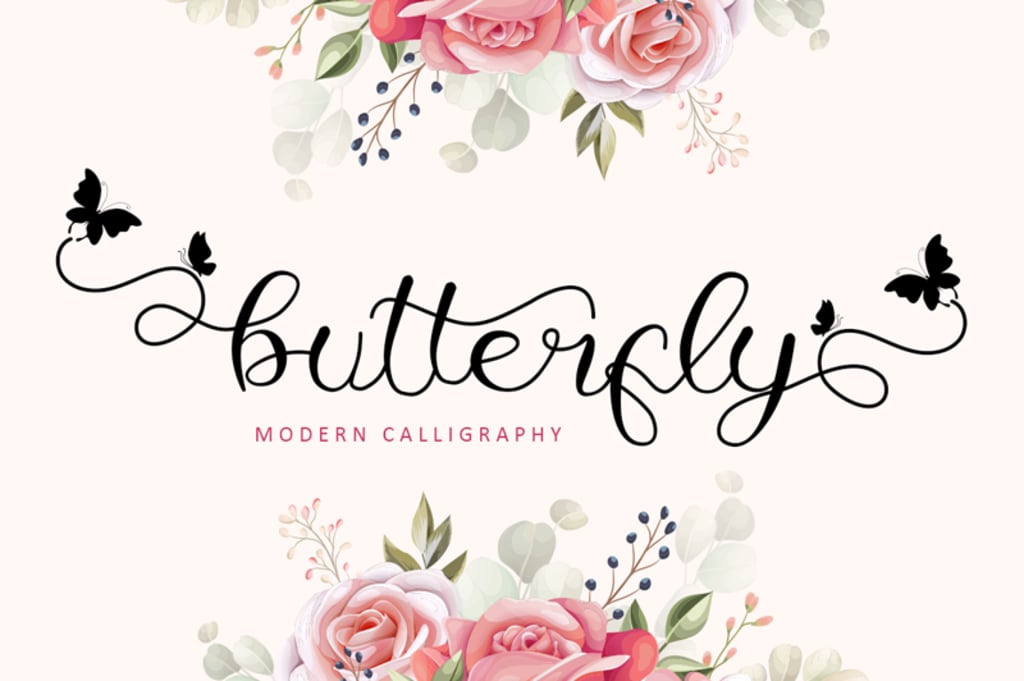
A designer needs to know many types of fonts to give a beautiful touch and enhance the design quality. Additionally, you also need to know the do’s and dont’s of font types so you can use them properly. If you design invitations, logos, brands, book covers, posters, and more, try using cursive font typography.
Cursive fonts are inspired by handwriting which was very popular in the 16th century. The purpose of writing using cursive letters at that time was to make it faster. However, the interlocking strokes between one letter and another turn out to be pleasing to the eye.
10+ Best Choice of Typography Cursive Font for Designer
Below are some recommendations for cursive fonts that you can choose to give a sweet and elegant touch to your design:
1. Sweet Lavender
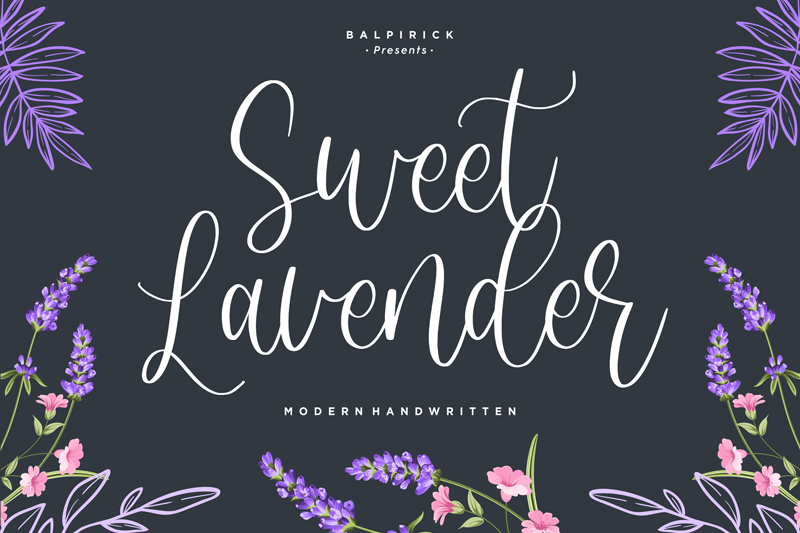
The letters in the Sweet Lavender font are medium-thickness. In addition, the strokes connecting letter to letter use thinner lines. This type of font has excellent legibility because the gap between letters is quite wide. As such, this font will work well for long texts.
2. Creamy Chocolate
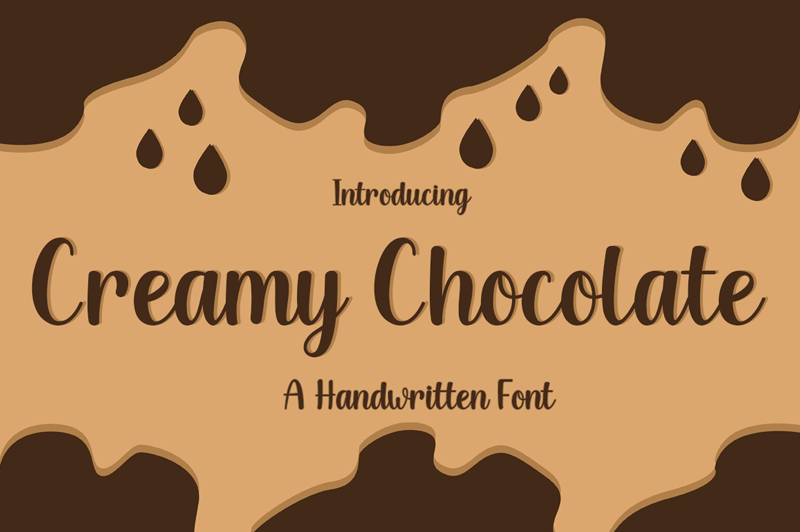
The next cursive font that you can use for long text with very clear legibility is the Creamy Chocolate font. This font is semi-cursive, so the block letter design is clearly visible. The display also looks clean because it doesn’t use a lot of strokes and curls.
3. Gelato
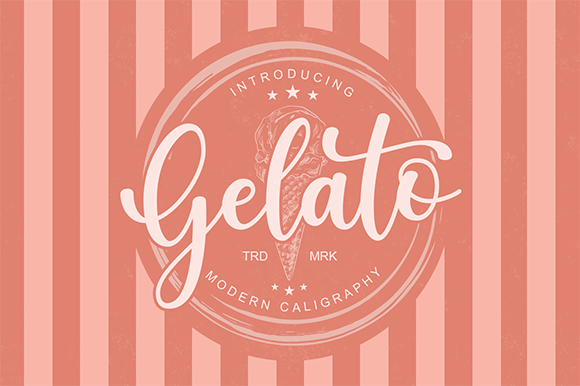
Another beautiful cursive font you can choose for poster titles, book covers, and other design projects is the Gelato font. Even though it doesn’t use too many curly accents, the writing looks elegant, neat, and sweet.
Additionally, Gelato font also provides complete features, such as uppercases, lowercases, symbol letters, punctuation marks, and numbers.
4. Billie Sight
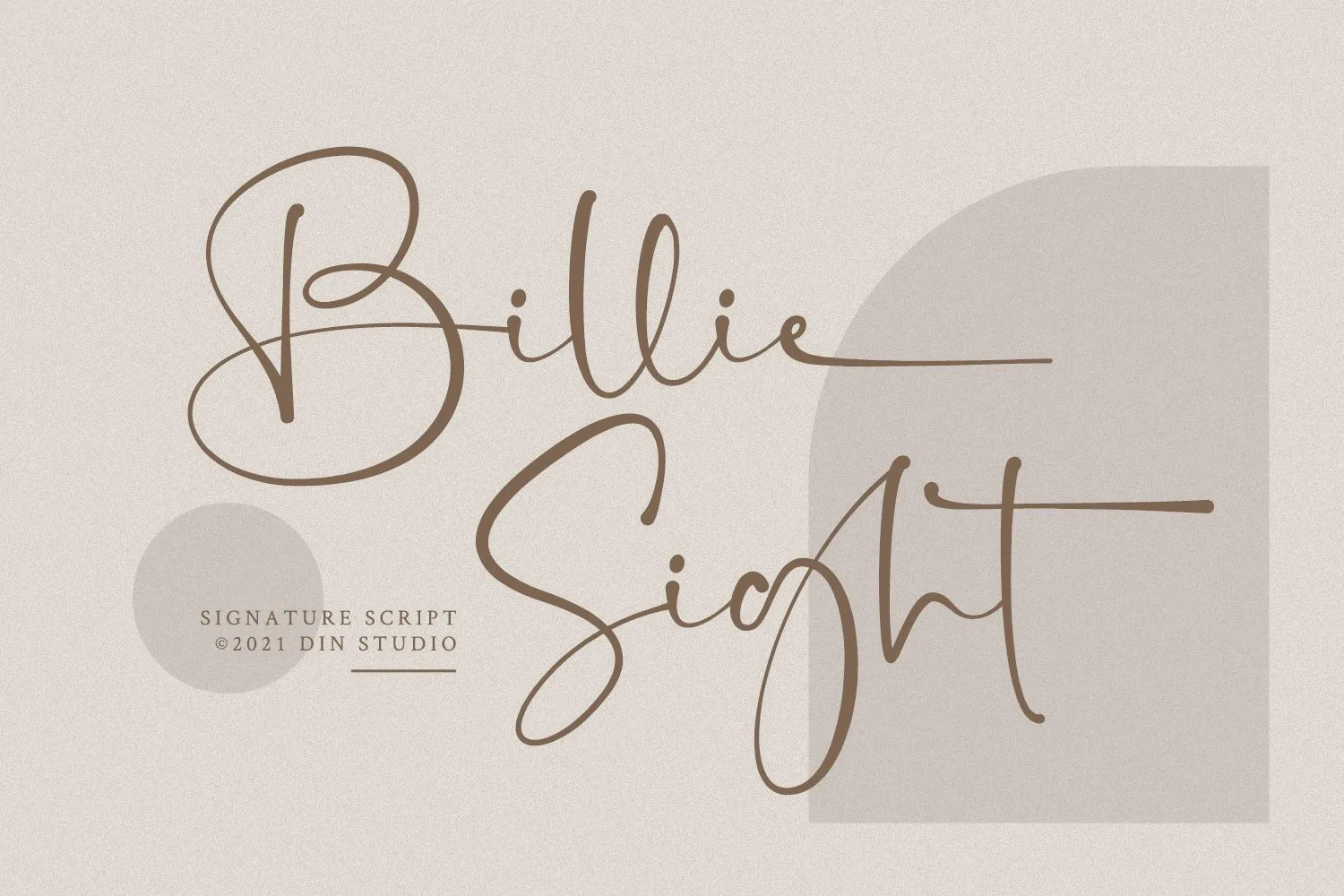
You can choose the Billie Sight font if you want to present a handwritten scratch accent like a pencil. This type of font gives a very strong classic modern touch with good legibility.
5. Youth Boys
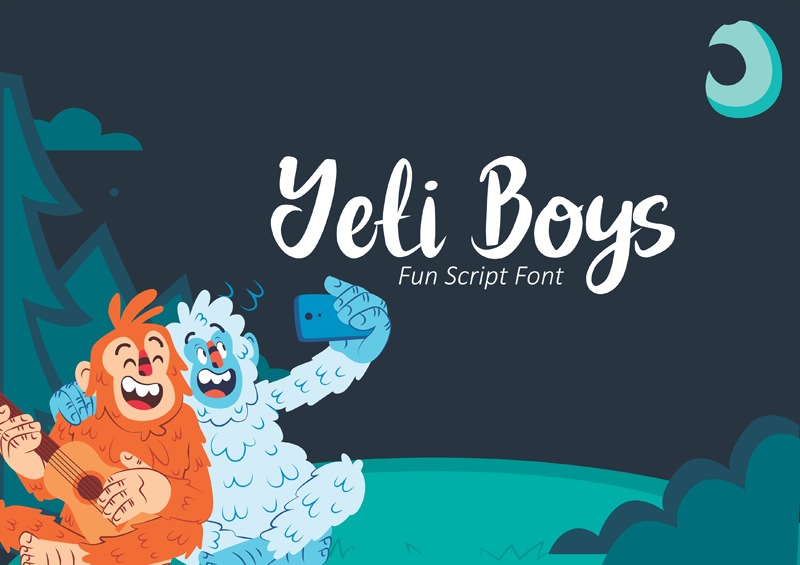
Looking for a fun typography cursive font with a bold display? Youth Boys could be a great idea. Bold letters greatly enhance legibility. Moreover, the Youth Boys font is semi-cursive so that the writing doesn’t look complicated as it is clumpy.
6. Hill Diary
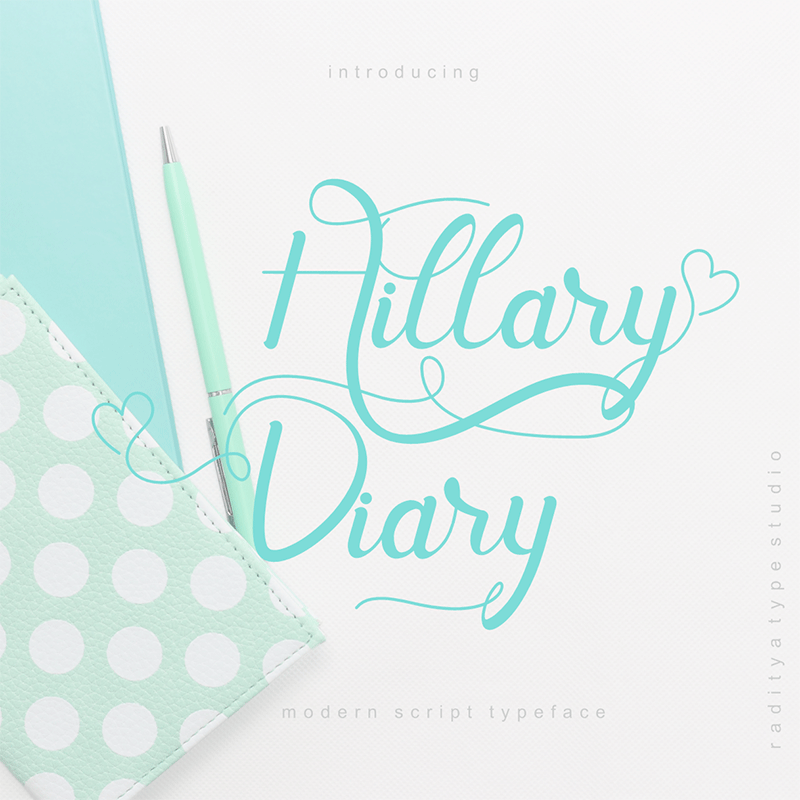
The Hill Diary font can be an alternative for bringing gorgeous and rich visuals. Curly tendril strokes give a sweet and elegant touch to the design. Nonetheless, this font has excellent legibility.
7. Remachine Script
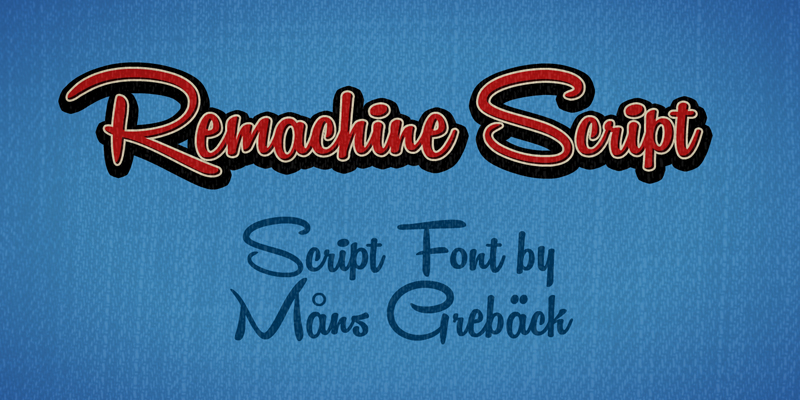
Remachine Script can be a compelling consideration if you want to use a cursive style for long text. Display cursive writing is dense and uses medium bold letters. Interestingly, this font gives the effect of tidiness and clarity
8. Butterfly
Giving a dramatic touch with a soft flow would be perfect if you use the Butterfly font. Your design display will be like a dream with a touch of curved lines. Even though it doesn’t use bold letters and uses a lot of curly effects, it doesn’t reduce its readability at all.
9. Rosemary
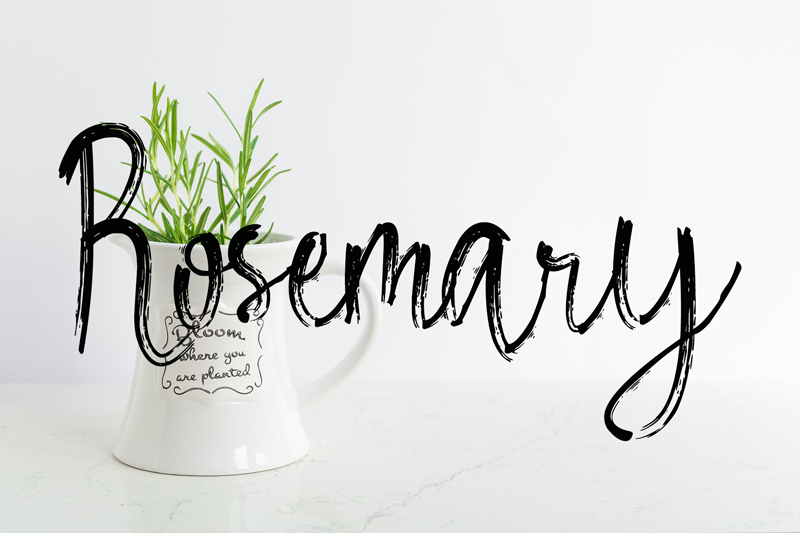
If you want to bring a design concept that represents a unique and modern look, try using the typography cursive font from Rosemary. Writing that looks like a brush stroke will give an aesthetic and artistic touch.
10. Angello
Another font type with a handwriting effect that gives a modern look to topography is the Angello font. This simple cursive font with a distinctive design is perfect for logos, product brands, and various other projects. The legibility of the writing is very good because each letter has a gap that is not too dense.
11. Sallowbliss
If you make a greeting card, then you can choose the Sallowbliss font because it has a feminine design. Light strokes will complete the design with a proportional look. Apart from that, it can be used to highlight the elegant side with its simplicity.
12. Maghody
A cursive font with a thick brush stroke effect that will make typography stand out is Maghody font. This font is the best recommendation for poster titles, book covers, brand names, and so on. Given its very bold font, Maghody is suitable for short texts.
Which Typography Cursive Font Do You Want to Use?